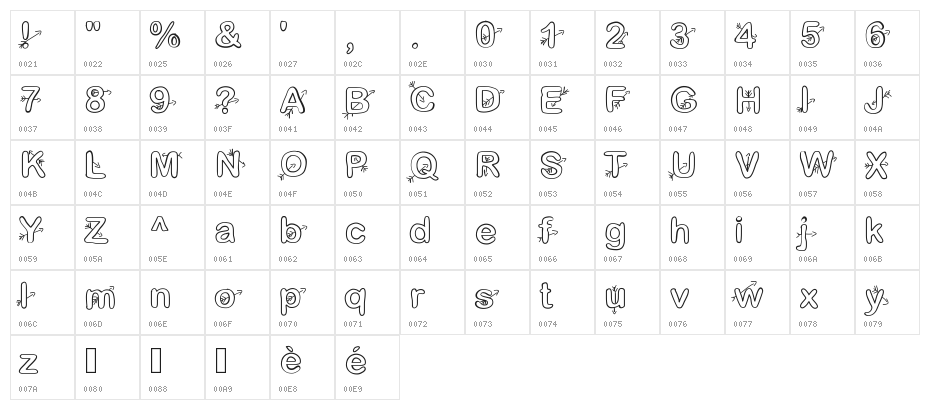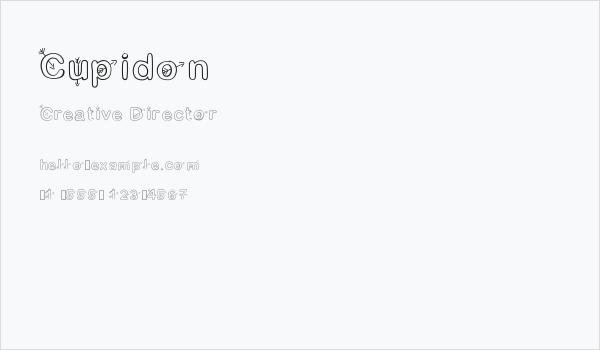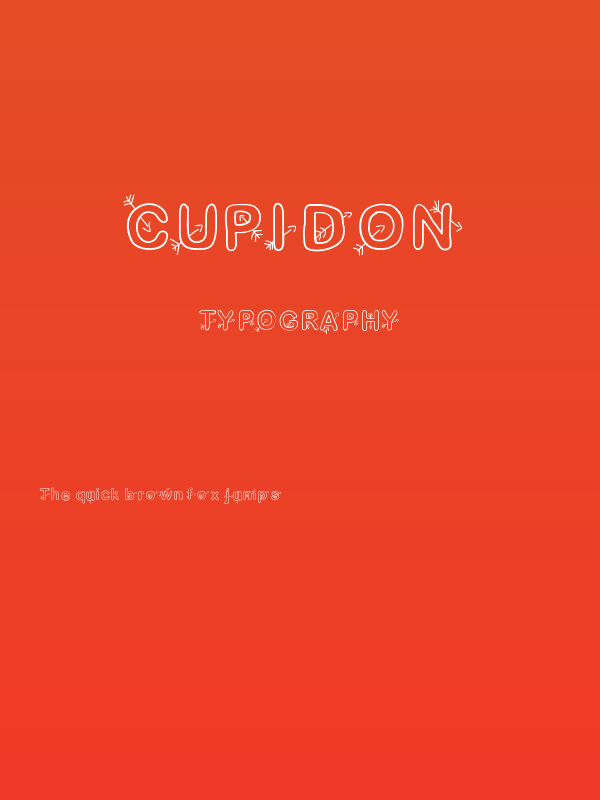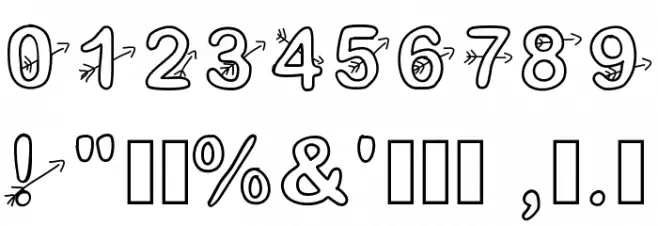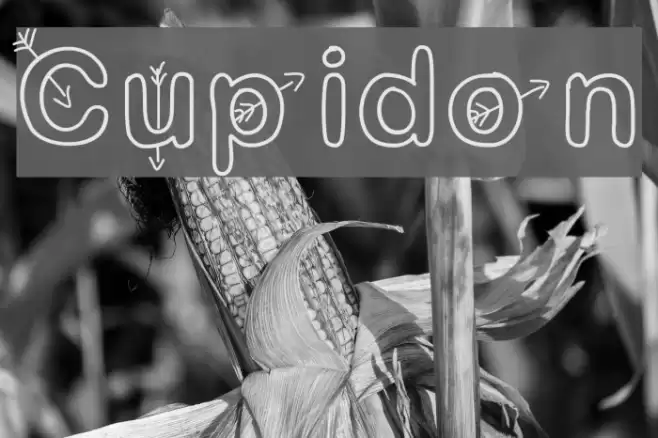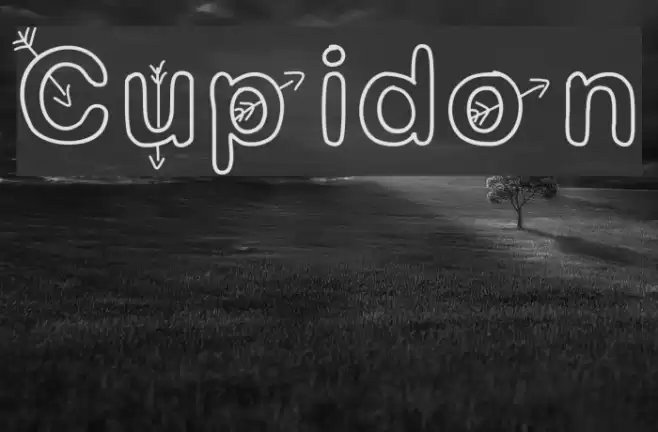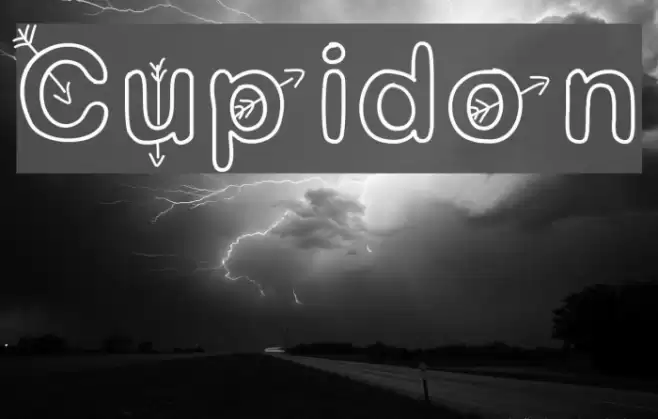
Cupidon Font
Cupidon Description
This playful and whimsical font features a unique design where each character is adorned with small arrows, giving it a charming and quirky appearance. The letters are outlined, creating a hollow effect that adds to the font's lightheartedness. The overall style is decorative, making it ideal for projects that require a fun and engaging look. The font maintains a consistent stroke width, ensuring readability while still offering a distinct visual appeal. Its creative design makes it suitable for various applications, especially those aimed at a younger audience or for festive occasions.
| Proposed Projects | Ideal for children's books, playful invitations, greeting cards, and festive event posters. |